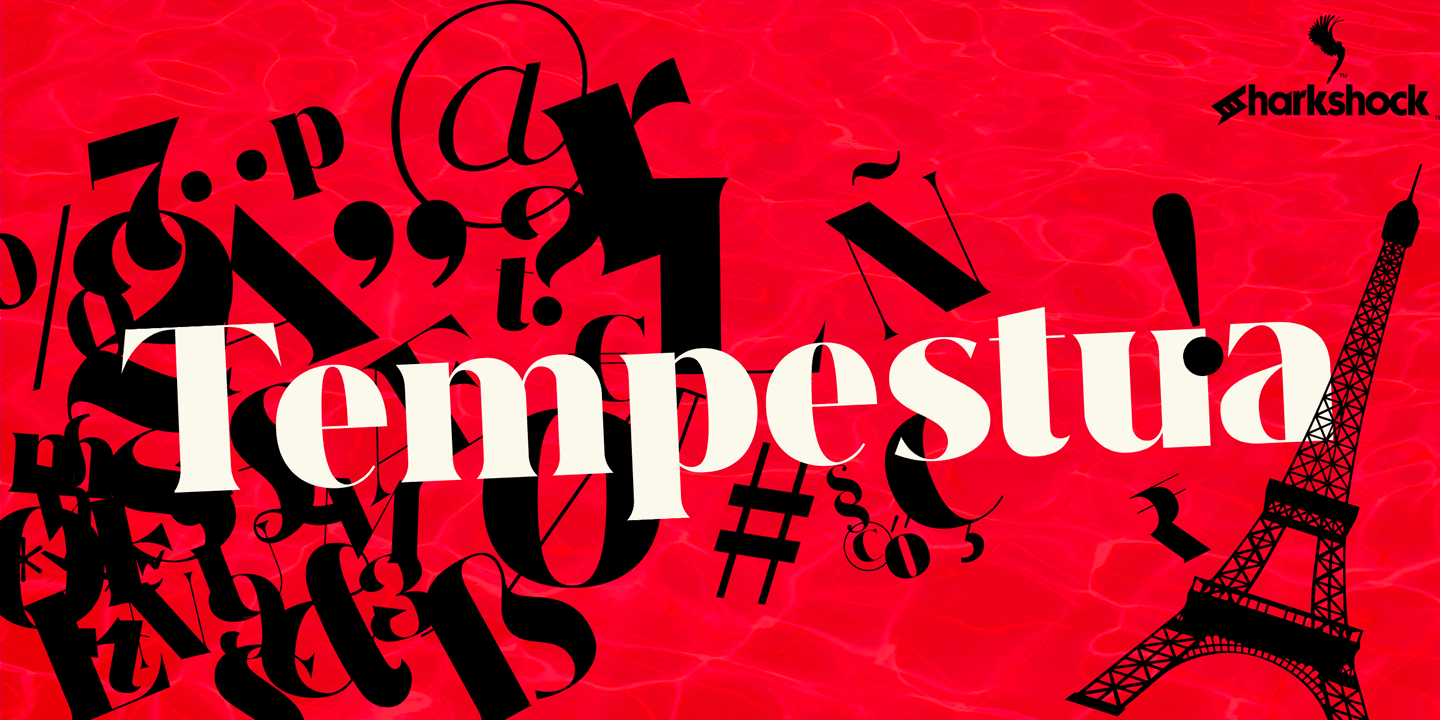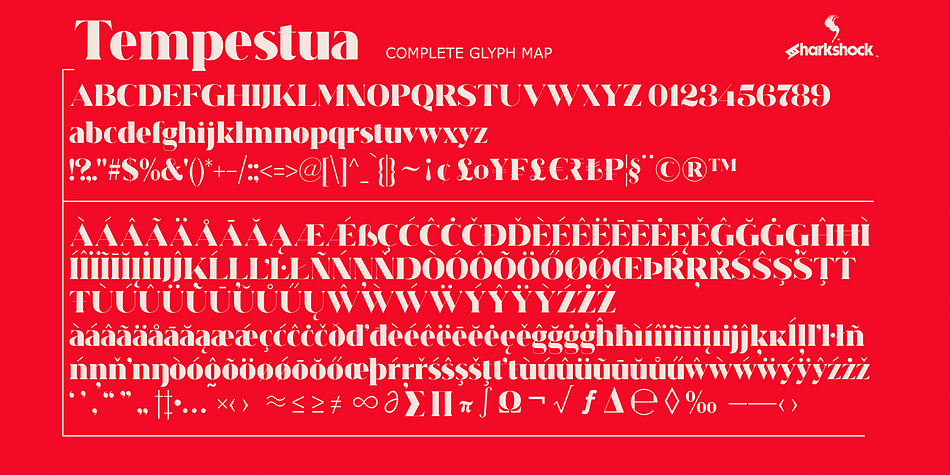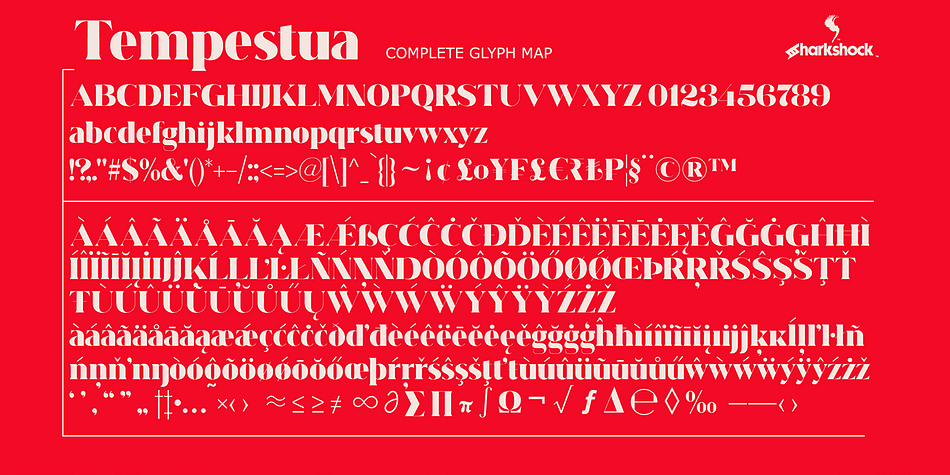
Tempestua
Designed by Dennis Ludlow, Tempestua is a display serif font family. This typeface has two styles and was published by Sharkshock.
Beauty….Style…. Sophistication…. Tempestua is a very chic display font suitable for a variety of purposes. This typeface is defined by wispy, thin lines paired alongside broad strokes for maximum contrast. Some of the lowercase letters feature shaved off serifs as well as flattened tops. Elegant curves will keep eyes moving throughout ensuring viewers will be stopped in their tracks. Use Tempestua for a luxury brand logo, magazine, or movie title. Basic Latin, Extended Latin/ diacritics, kerning, italics, and support for Polish are included.
Foundry Sharkshock
Designer Dennis Ludlow